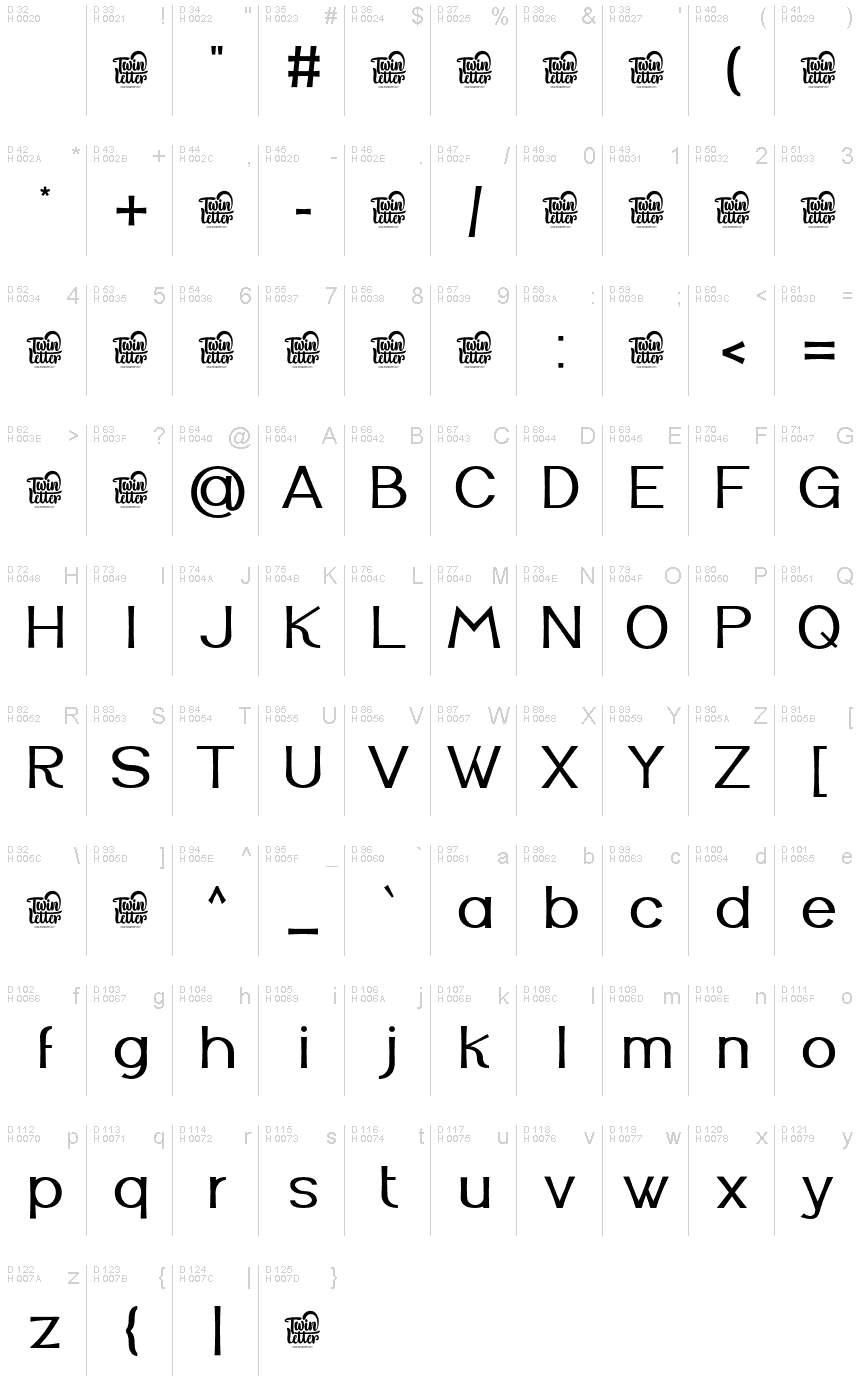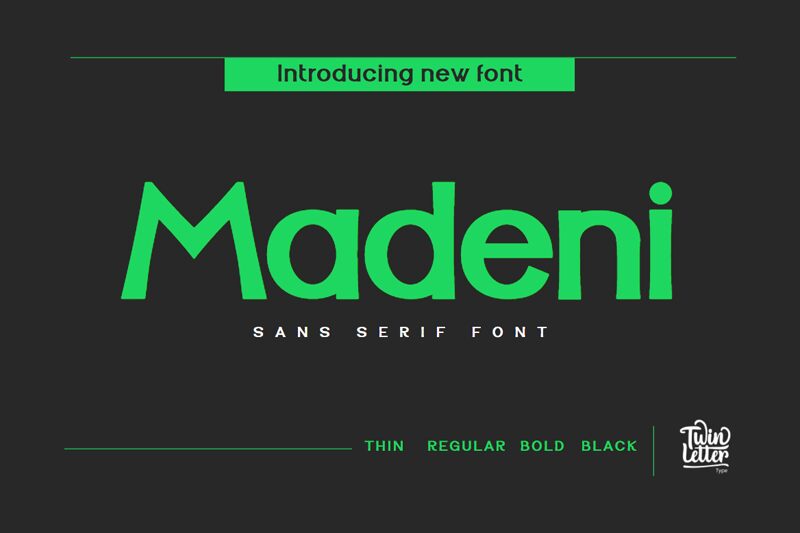
Madeni-Regular
Looking for a fresh and modern font that's perfect for a variety of projects? Look no further than Madeni, the stunning sans serif typeface designed by twinletter. With its semi-light weight and semi-expanded width, Madeni is versatile enough to work for everything from branding and advertising campaigns to web design and print materials. Its clean lines and easy-to-read lettering make it an ideal choice for everything from headlines to body text, while its sleek style adds a touch of sophistication to any project. So whether you're designing a new website or creating marketing materials for your business, Madeni is the perfect choice!